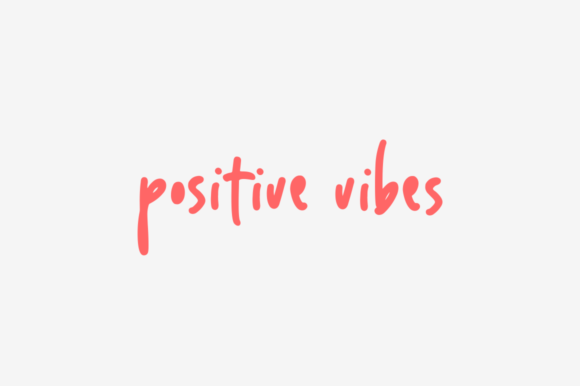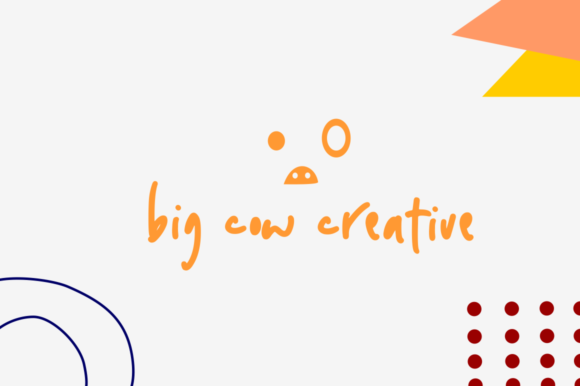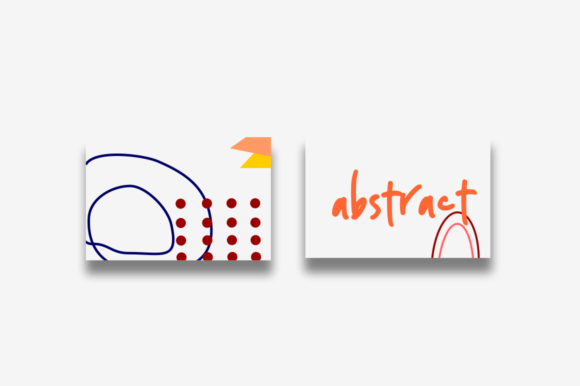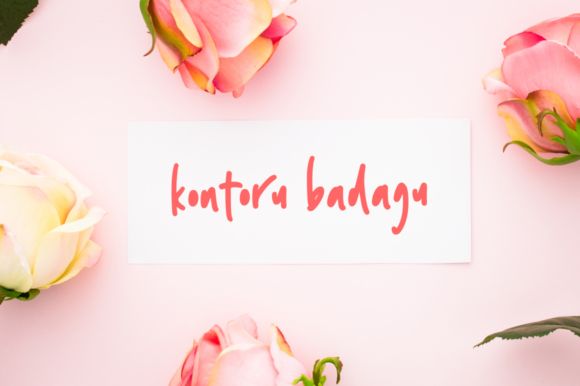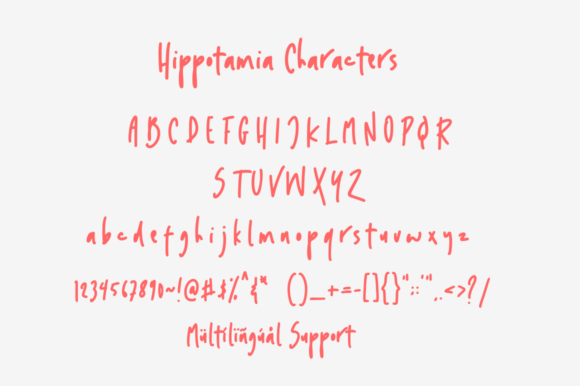
Introduction to Hippotamia Font
Hippotamia is a playful font perfectly suited for any project that needs some positive vibes.
Hippotamia is a playful font perfectly suited for any project that needs some positive vibes!
Key Features of Hippotamia Font